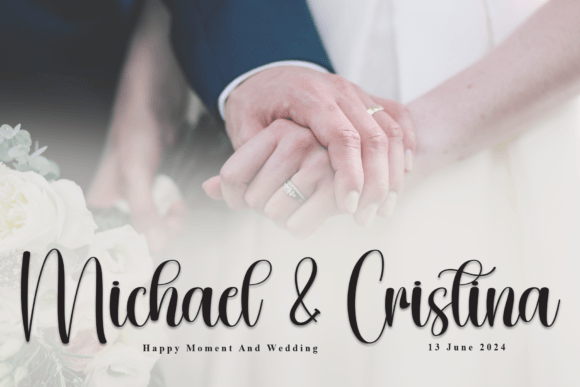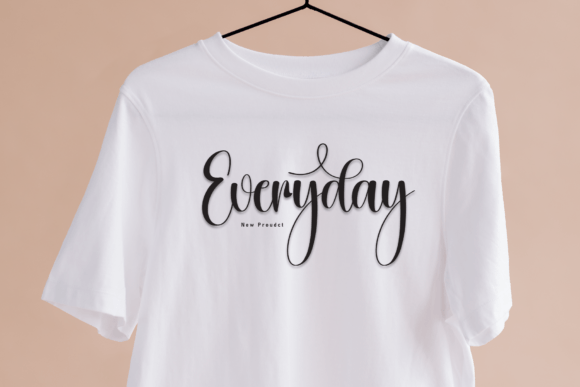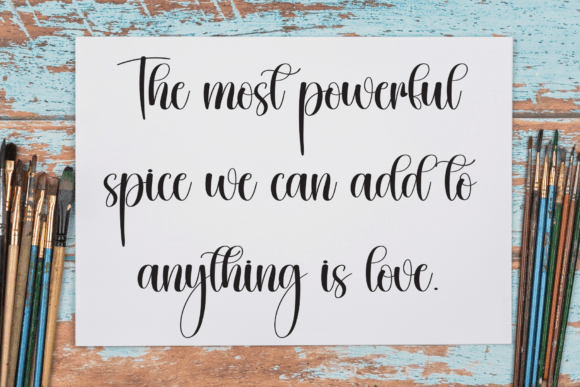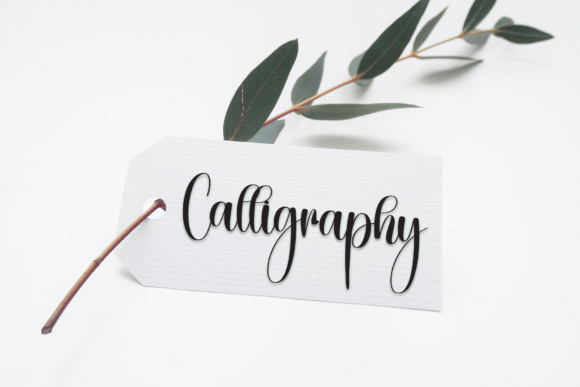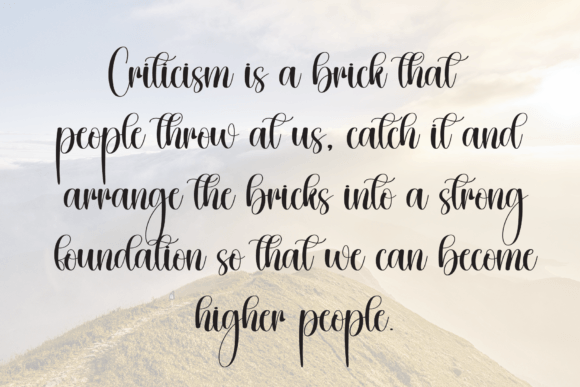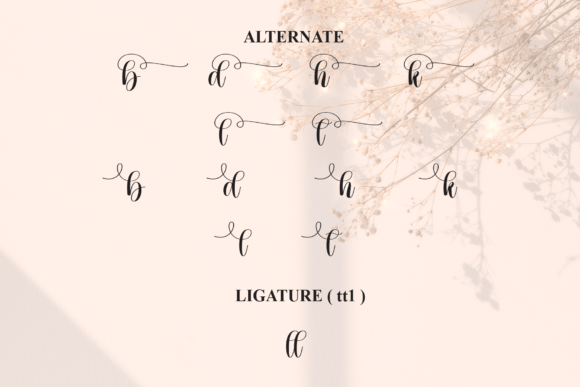
Unlock the Magic of Handwritten Design with Bachelorette Font
Have you ever sat at your desk, staring at a blank canvas, waiting for inspiration to strike? That’s exactly what happened to me last week. I was brainstorming ideas for a new branding project and suddenly, I had an epiphany. I would create a logo that exuded warmth and personality, something that would capture the essence of the brand. And that’s when I stumbled upon the Bachelorette Font.
This lovely and timeless handwritten font is a game-changer for designers. With its unique and beautiful touch, it brings any design to life. Whether you’re creating eye-catching logos, branding, or quotes, Bachelorette Font is the perfect choice. Its versatility and charm make it a valuable asset for any designer looking to add a personal touch to their work.
Bachelorette Font Key Features
- Font Family: Bachelorette is a script font family designed to resemble handwritten text, ideal for creative and elegant typography.
- Unique Characteristics: The font features a flowing, cursive style with subtle flourishes and connections between letters, giving it a personal and romantic feel.
Bachelorette Font Review
I have to admit, I was intrigued by the Bachelorette Font, with its playful, handwritten feel. Here are my thoughts:
- Unique, eye-catching aesthetic – it’s perfect for adding a touch of whimsy to your designs.
- Good for titles and headings, as it’s easy to read and understand.
- Limited legibility in small font sizes – it can be hard to read at 12 points or smaller.
- May not be suitable for formal or professional projects, as it comes across as too casual.
- No comprehensive font family available – it’s just a single font with various styles.
Overall, I think the Bachelorette Font is a fun, creative option for designers looking to add a playful touch to their projects. However, it’s not suitable for every type of design, and its limitations should be taken into consideration. If you’re looking for a unique font to add some personality to your work, the Bachelorette Font might be worth exploring.
Tips for Getting the Most Out of the Bachelorette Font
Use the Bachelorette Font to add a touch of elegance and sophistication to your designs.
Pair the font with bold colors and geometric shapes for a modern look.
Use the font for titles, headings, and body text to create a cohesive design.
The Bachelorette Font is perfect for:
Party and event decorations
Photography and design portfolios
Branding and marketing materials